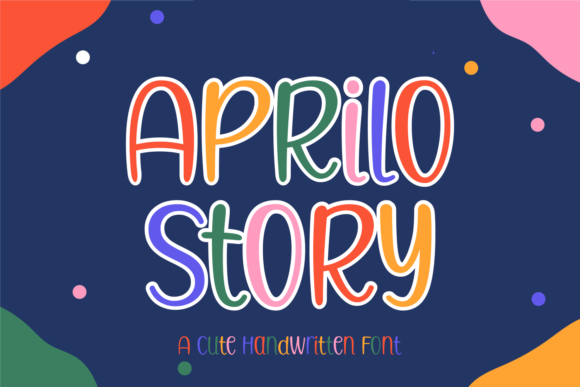
Unleashing Imagination with Aprilo Story Font
Who hasn’t had that moment when a spark of creativity strikes, and you can’t wait to bring your ideas to life? For designers, this moment is what drives them to push the boundaries of their art. And what’s more thrilling than having the right tools to make it happen? Enter Aprilo Story Font, a delightful handwritten font that embodies the carefree spirit of childhood.
With its relaxed theme and casual style, Aprilo Story Font is the perfect companion for designers who want to create engaging and playful designs, especially for children’s themes. Its versatility and charm make it an invaluable asset for any creative project. Whether you’re working on a children’s book, a nursery decor, or a fun website, Aprilo Story Font is sure to bring a smile to your audience’s face.
Aprilo Story Font Key Features
- Font Family: Aprilo Story Font is a modern, sans-serif font family designed for digital use. It includes 6 weights (Thin, Light, Regular, Medium, Bold, and Black) and italics for each weight.
- Unique Characteristics: Aprilo Story Font features a unique, rounded edge design with a subtle x-height, making it perfect for body text and display headings. The font also includes advanced typographic features such as ligatures and contextual alternates.
Designer Review: Aprilo Story Font
I recently had the chance to work with the Aprilo Story Font, and I must say, it’s a unique and intriguing typeface. ✨ Here are some things that stood out to me:
- ✨ Whimsical feel: Aprilo Story Font has a distinct, hand-drawn quality that adds a touch of personality to any project.
- ✨ Versatility: It can be used in a wide range of applications, from children’s books to wedding invitations.
- ✨ Large character set: The font includes a comprehensive set of characters, including accents and symbols.
- ⚠️ Limited legibility: At smaller font sizes, the letters can become difficult to read due to the intricate details.
- ⚠️ Limited line spacing: The font can become crowded if not enough space is provided between lines.
Overall, I’d say the Aprilo Story Font is a great choice for designers looking to add some flair to their projects. While it may not be suitable for all applications, its unique charm and versatility make it a great addition to any font collection.
Tips for Getting the Most Out of Aprilo Story Font
Aprilo Story Font is a versatile and elegant font that can be used in a variety of contexts. Here are a few tips for getting the most out of it:
- Use it for titles and headings to add a touch of sophistication to your designs.
- Experiment with different font sizes and styles to create a unique and eye-catching effect.
- Combine Aprilo Story Font with other fonts to create a visually appealing and balanced design.
Alternatives to Aprilo Story Font
Playfair Display is a luxurious, high-end font that is perfect for creating a sense of sophistication and elegance. It is ideal for use in headings, titles, and other high-impact text. When to use: Luxury brands, high-end products, and formal invitations.
Comparison to Aprilo Story Font: While both fonts have a classic feel, Playfair Display is more ornate and elaborate, making it a better choice for high-end designs. Aprilo Story Font has a more subtle, storytelling feel.
Lato is a clean, modern sans-serif font that is highly legible and versatile. It is suitable for use in a wide range of applications, from body text to headings. When to use: Websites, magazines, and other digital media.
Aprilo Story comes in a range of font sizes, including small caps, titling, and caption styles. The font also includes a variety of OpenType features, such as ligatures and swashes, which can be accessed through your design application’s font menu.